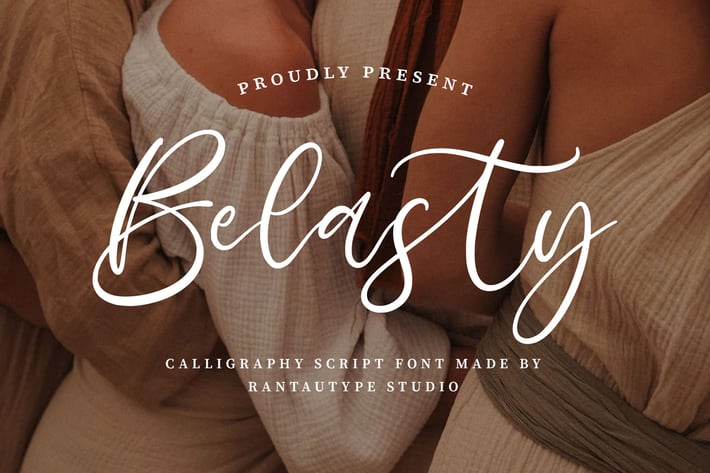
Belasty Calligraphy Script Font
Belasty is calligraphy script fonts are elegant, decorative typefaces that mimic the fluid, hand-written strokes of modern calligraphy. These fonts often feature connected letters, varying stroke thickness, and artistic flourishes, making them perfect for formal and artistic designs. Belasty is a beautiful choice for any creative endeavor, chic, lifestyle design such as logotype, advertisements, watermark on photography, stationery, branding project, display and magazine, invitation, corporate brand, product design, label, business project and many other project with handwritten touch.